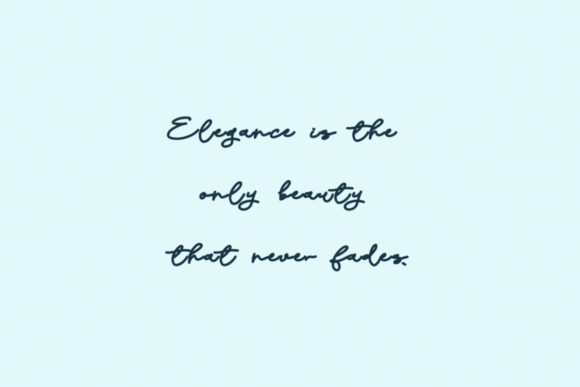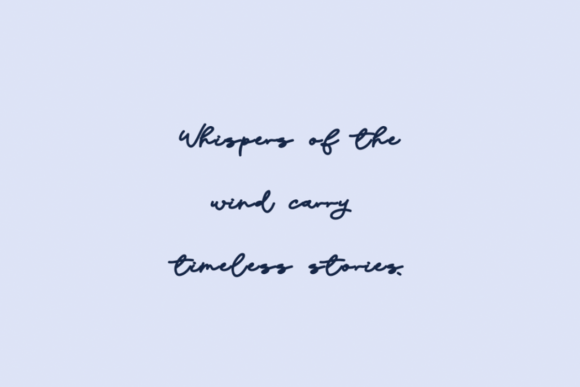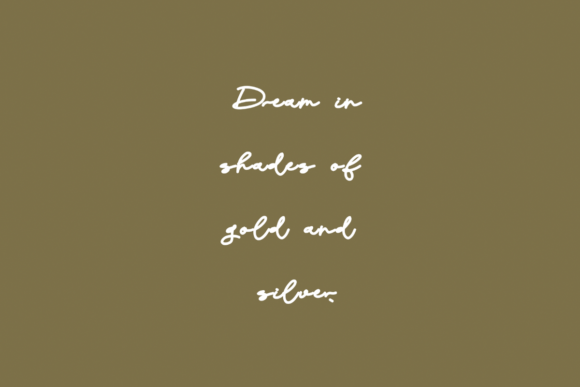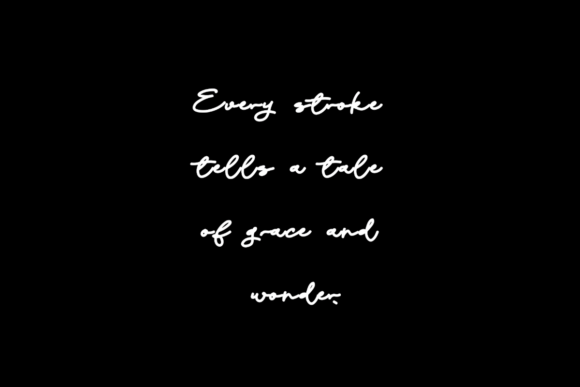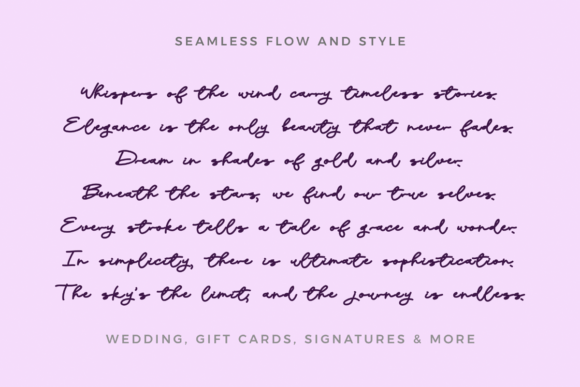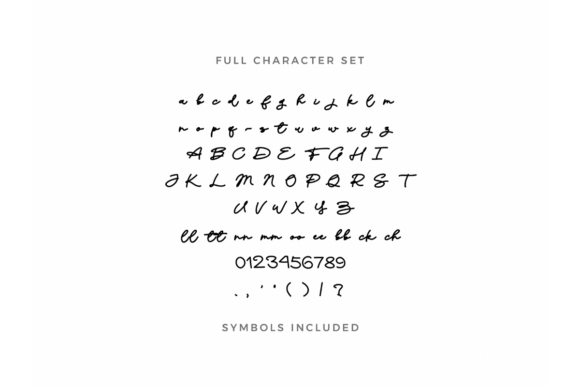
Introducing Friederich: The Enchanting Handwritten Script Font
Have you ever been in the middle of a design project, pouring your heart and soul into every detail, only to hit a roadblock when it comes to choosing the perfect font? I certainly have. It was during one of those moments, working on a branding project that required a touch of elegance and whimsy, that I stumbled upon Friederich. This enchanting handwritten script font has been a game-changer for me, and I’m excited to share its beauty with you.
A Personal Design Moment: Finding the Perfect Font
I was working on a branding project for a luxury boutique, aiming to capture the essence of high-end fashion with a dash of playfulness. The client wanted a font that would convey sophistication, yet feel approachable and unique. After hours of scrolling through font libraries, I felt like I was striking out. That was until I discovered Friederich. Its lavish hand lettering and distinctive character immediately caught my eye. I knew I had found the perfect fit.
An Honest Review of Friederich
- ✨ Unique Style and Character: Each curve and stroke in Friederich exudes individuality, making it perfect for projects that demand a personal touch.
- ✅ Elegant and Versatile: Whether you’re designing a logo, a wedding invitation, or a brand’s social media graphics, Friederich adapts seamlessly.
- 💫 Emotional Connection: The font’s carefully crafted letters seem to resonate with love and attentiveness, adding an emotional depth to your designs.
While Friederich is incredibly versatile, there are a few things to keep in mind:
- ⚠️ Legibility at Small Sizes: Like many script fonts, Friederich can be a bit challenging to read at very small sizes. It’s best used at larger sizes where its details can shine.
- 🤔 Pairing with Other Fonts: Due to its distinctive style, Friederich can be a bit tricky to pair with other fonts. It’s essential to choose complementary fonts that don’t compete for attention.
The Backstory of Friederich: Designer Inspiration
Friederich was born from a passion for lavish hand lettering and a desire to create a font that embodies both elegance and individuality. Inspired by the artistry of handwritten scripts, the designer meticulously crafted each letter to ensure that Friederich not only stands out but also tells a story. The result is a font that feels both luxurious and approachable, perfect for designers looking to make a statement.
Q: What makes Friederich unique?
A: Friederich’s uniqueness lies in its lavish hand lettering and distinctive character. Each stroke and curve is carefully crafted to provide a personal touch to your designs.
Q: Is Friederich suitable for body text?
A: While Friederich is stunning for headlines and short paragraphs, its script nature makes it less ideal for long body text. It’s best used for emphasis and decorative purposes.